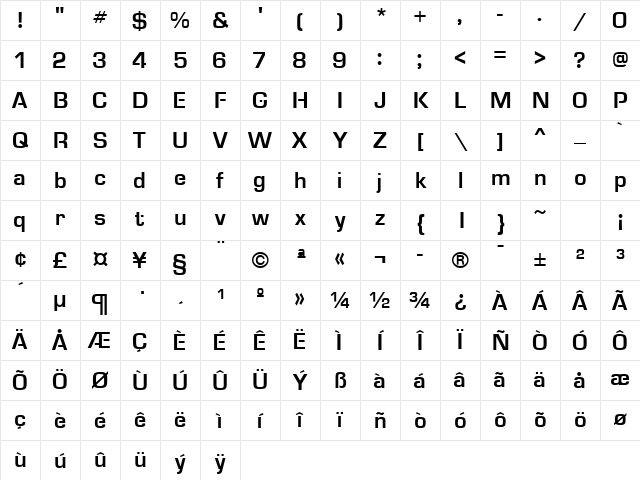
Complete Micro Bold glyph index. Displaying only characters natively supported by Micro Bold font.
Micro is a composed and adaptable typeface that performs quietly and consistently across a wide range of design contexts. Its bold stroke weight gives it real presence on the page.